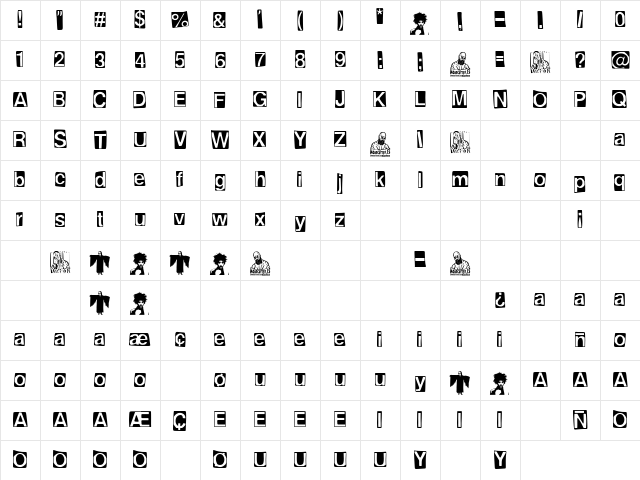
Helvetica Punk Regular Free Font
Helvetica Punk Regular
Designer: Woodcutter Manero
Complete Helvetica Punk Regular glyph index. Displaying only characters natively supported by Helvetica Punk Regular font.
Design Context for Helvetica Punk
Helvetica Punk is a composed and adaptable typeface that performs quietly and consistently across a wide range of design contexts.